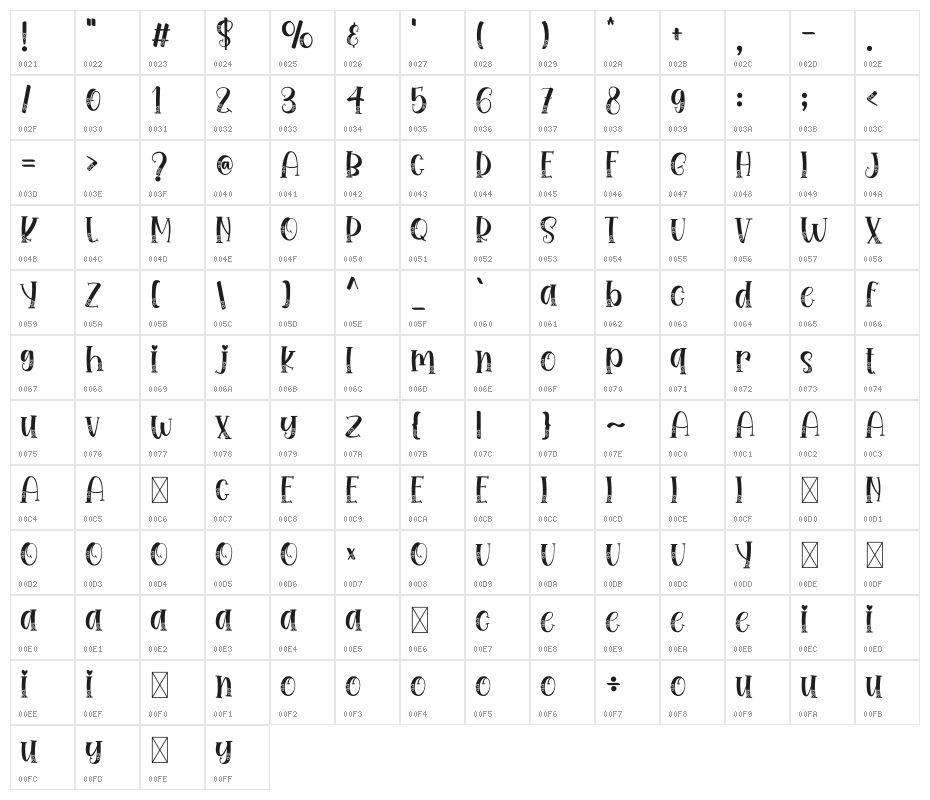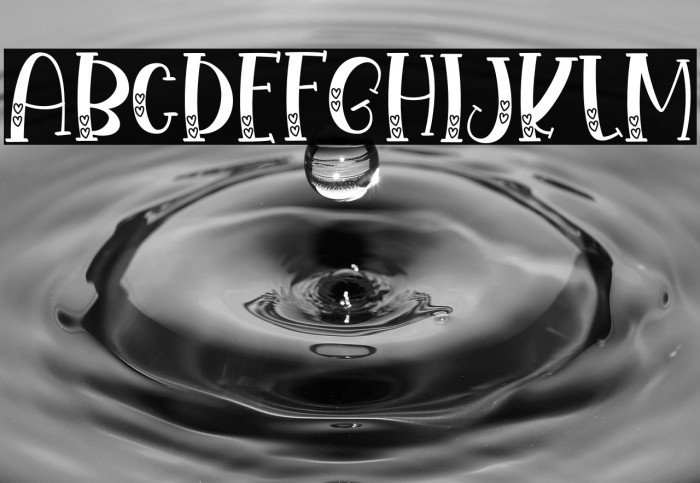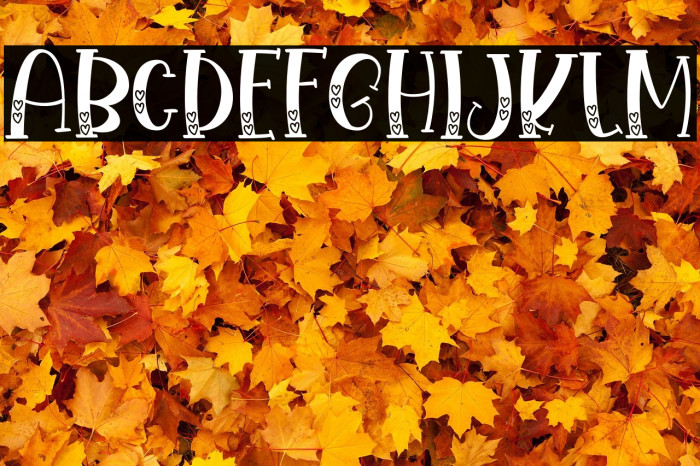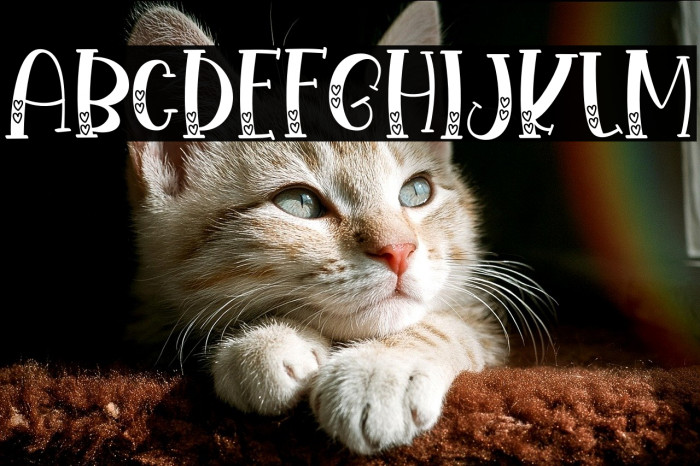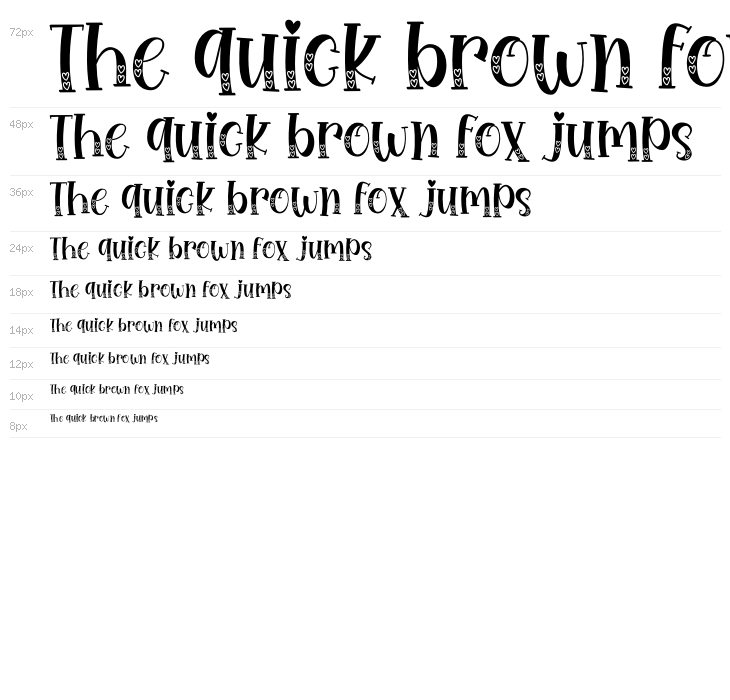
Baby Camila Love Font
Baby Camila Love Description
A playful and decorative font featuring heart motifs within the characters, giving it a whimsical and charming appearance.
| Overall Style | Playful and whimsical |
| Proposed Projects | Greeting cards, children's books, playful branding. |